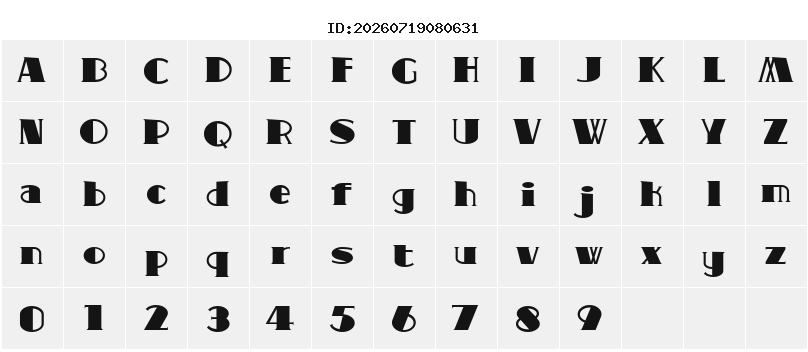
• Font Name: Comic
• Full Font Name: Comic Bold
About Comic.ttf
Comic.ttf is a modern, elegant sans-serif font designed for ultimate readability and visual harmony. Perfect for branding, headlines, web design, and print materials.